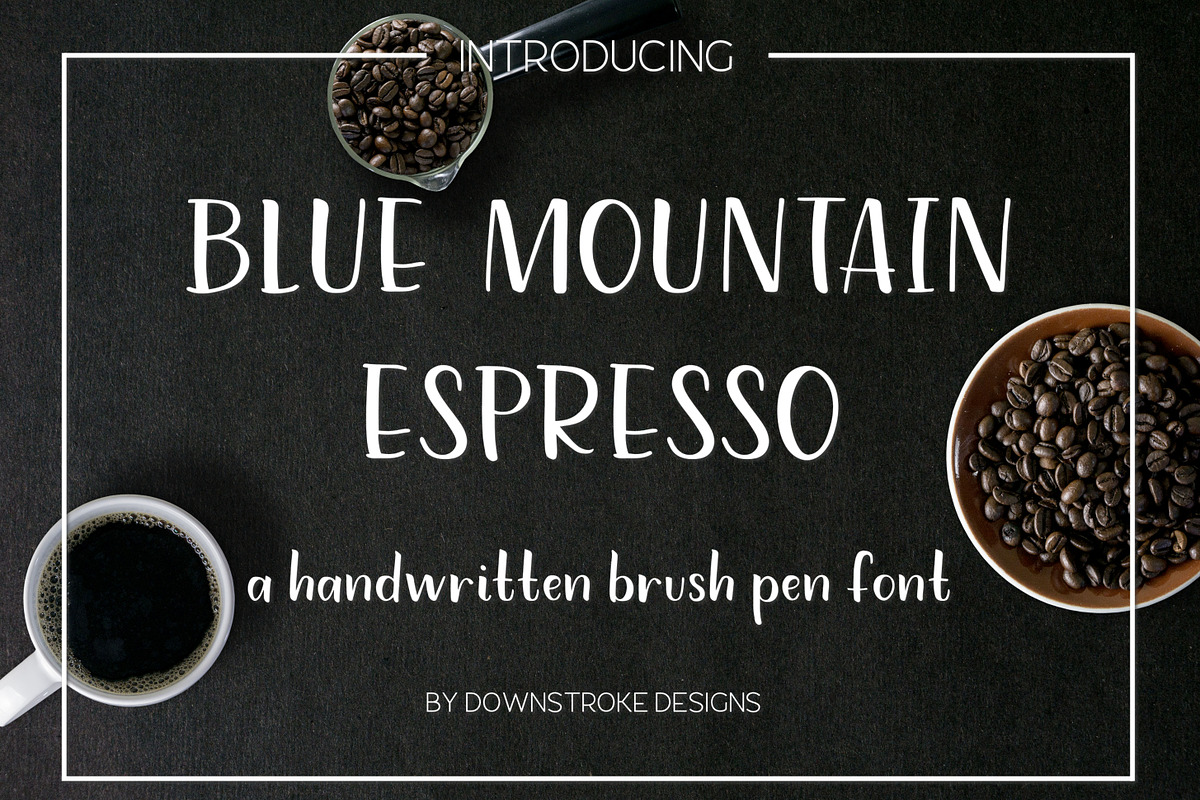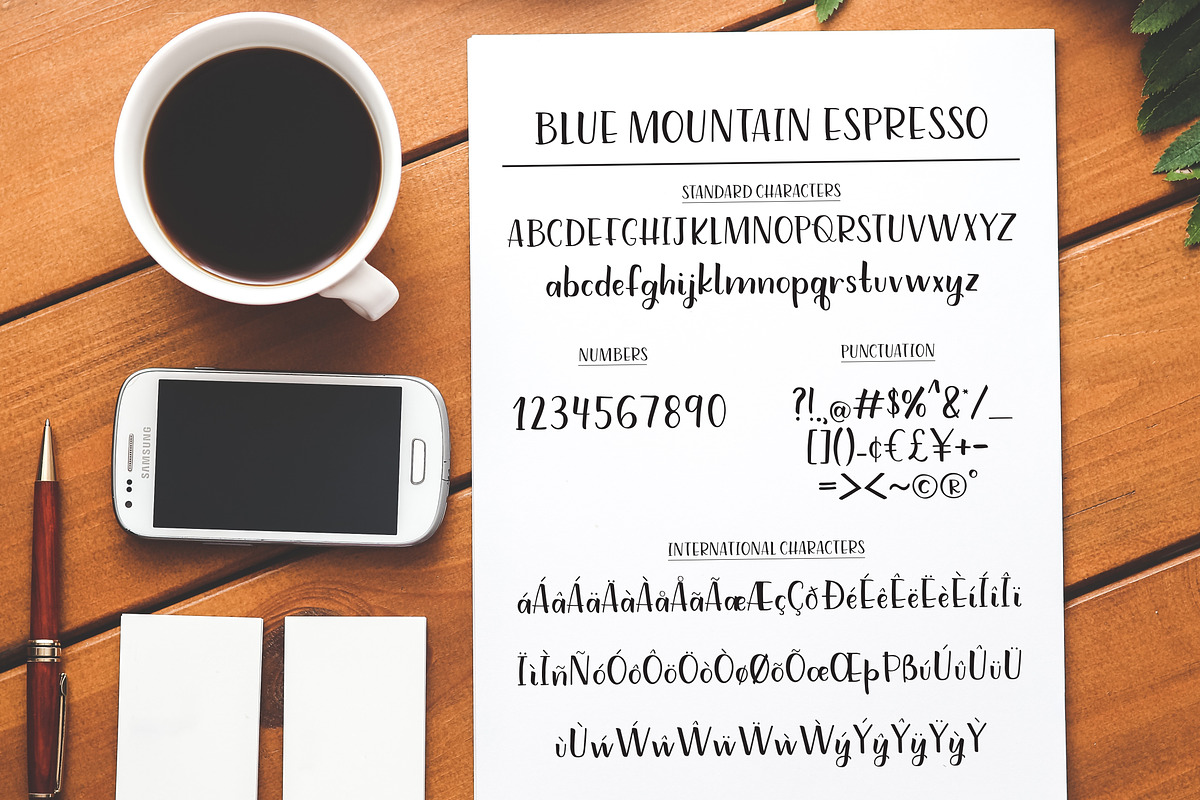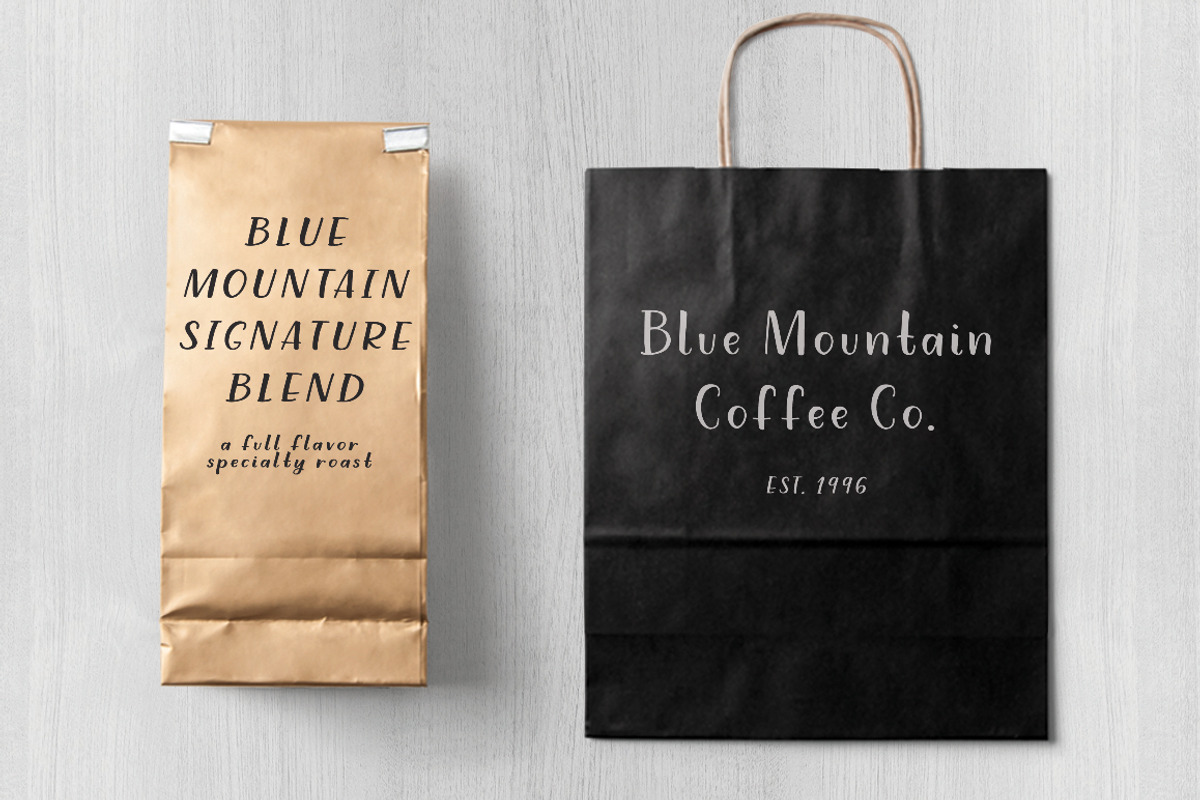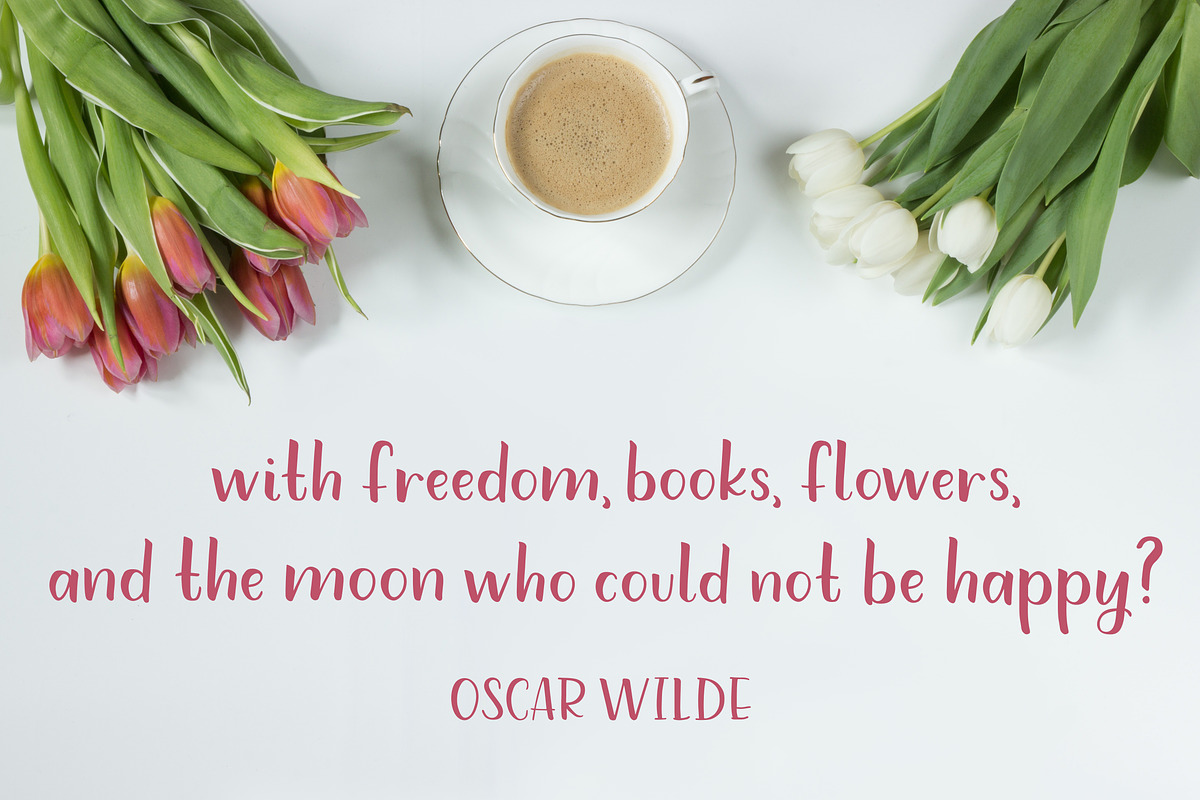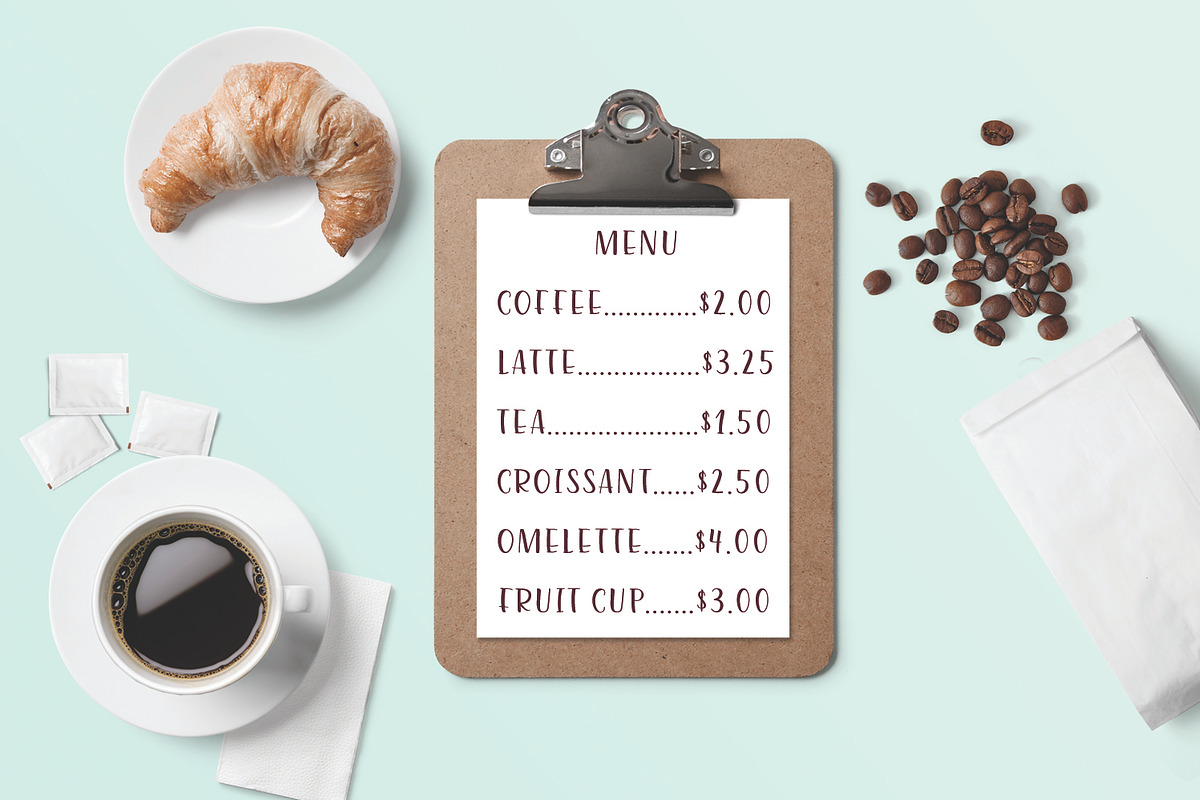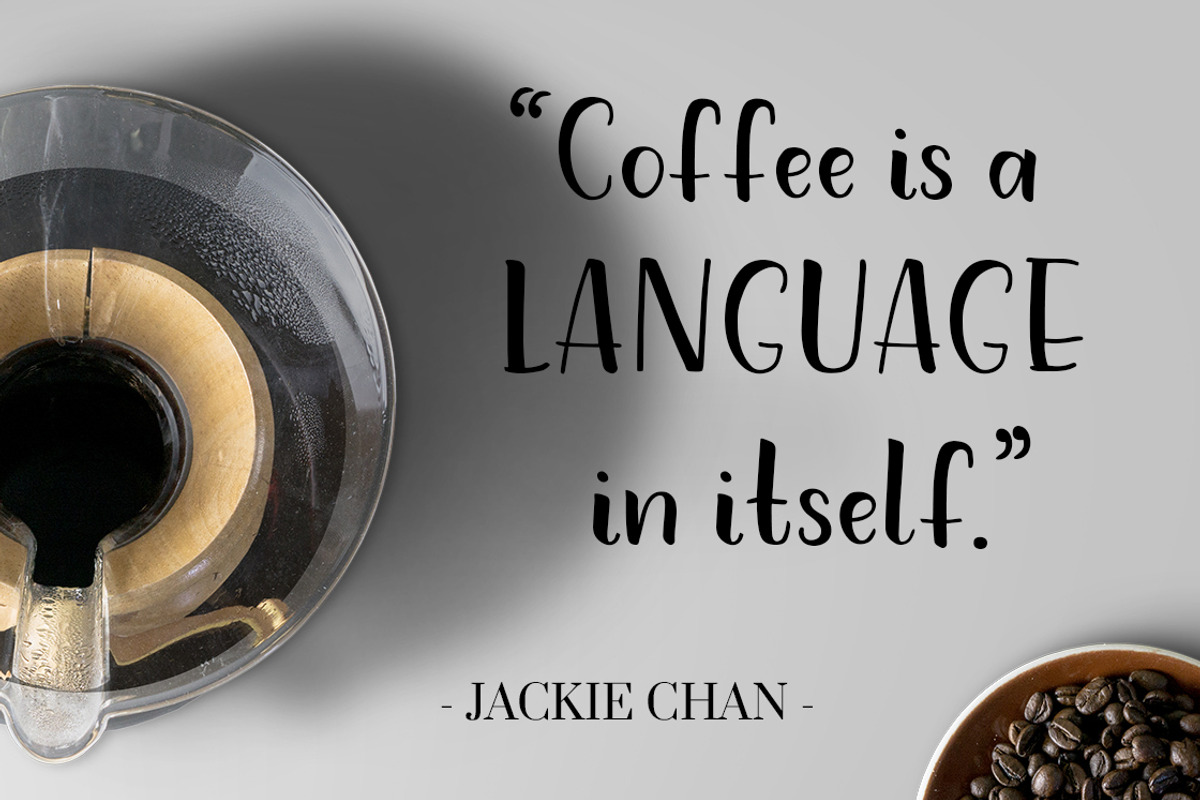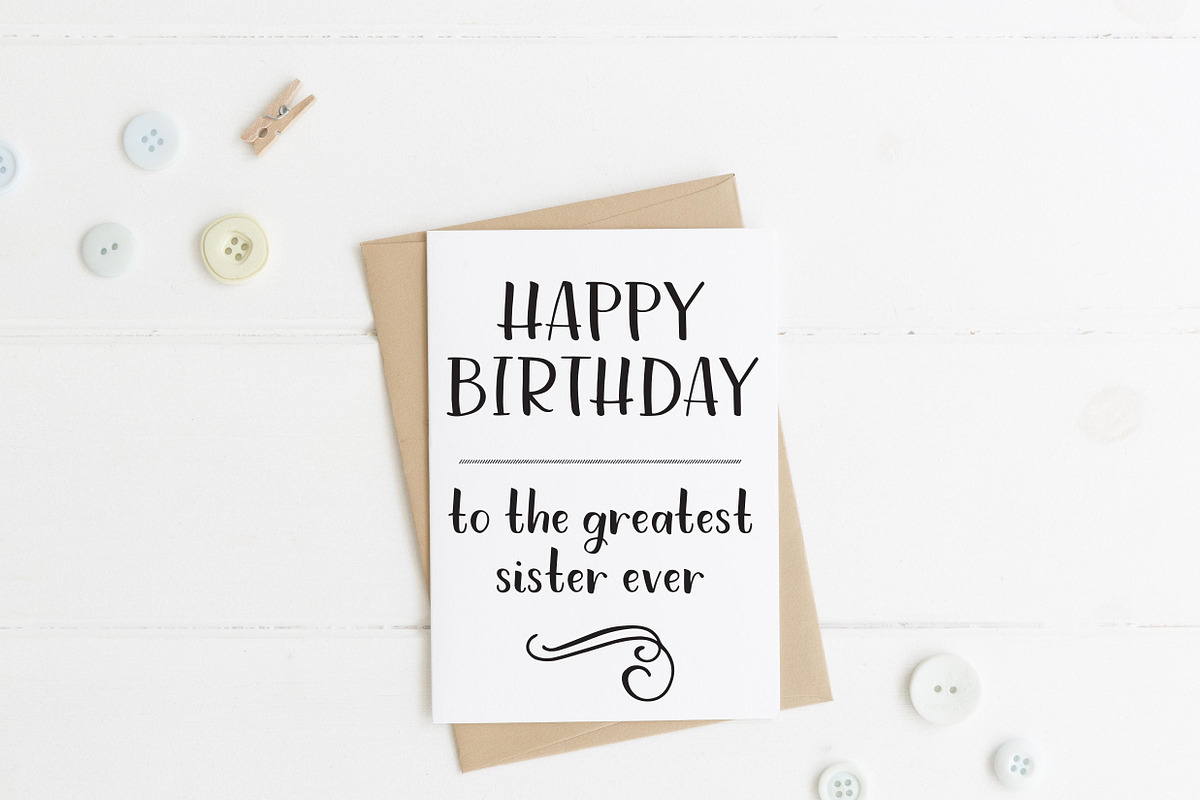
Blue Mountain Espresso Font
Blue Mountain Espresso Font by Downstroke Designs is a font selected for branding, posters, packaging, typography.
- Blue Mountain Espresso has over 200 characters including multilingual support for Western European Languages!
Why Blue Mountain Espresso Font is worth a look
Blue Mountain Espresso Font by Downstroke Designs fits naturally into Branding, posters, packaging, typography.